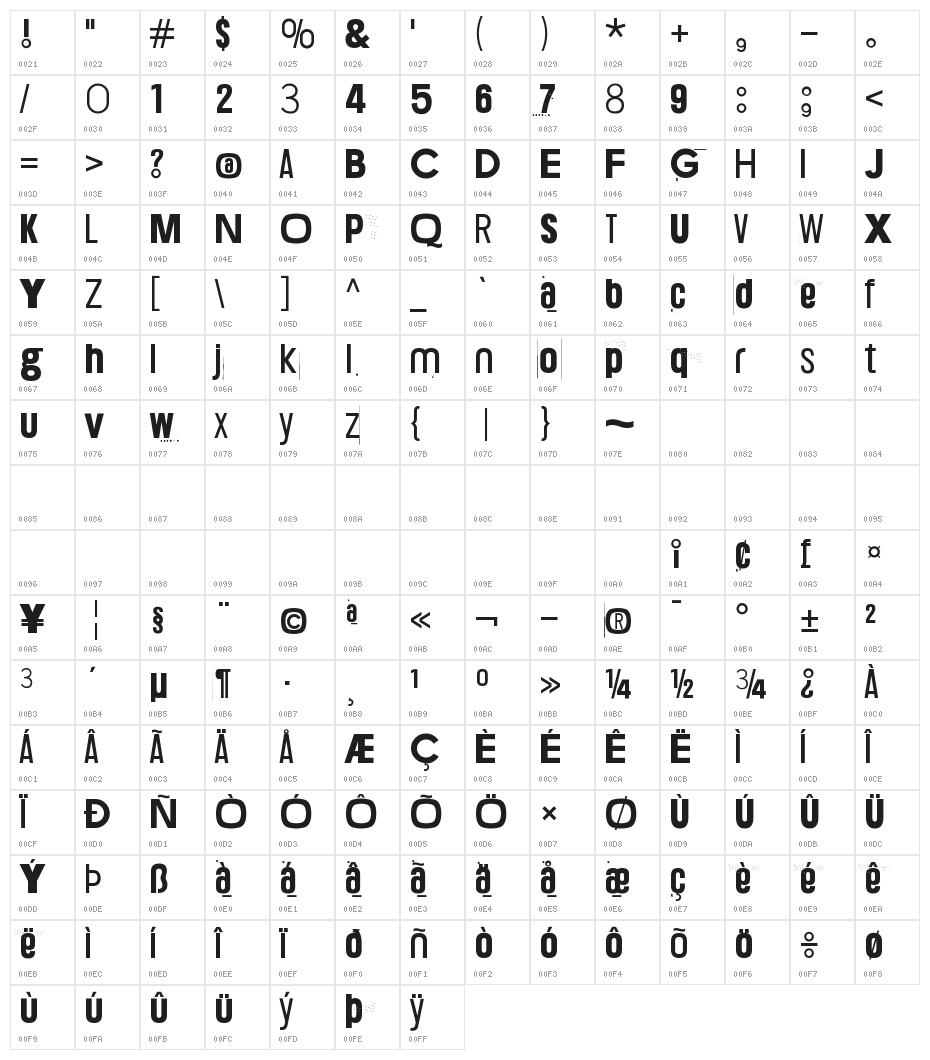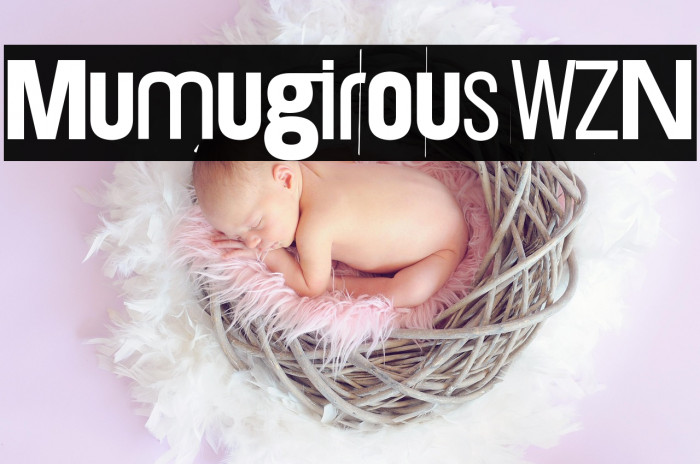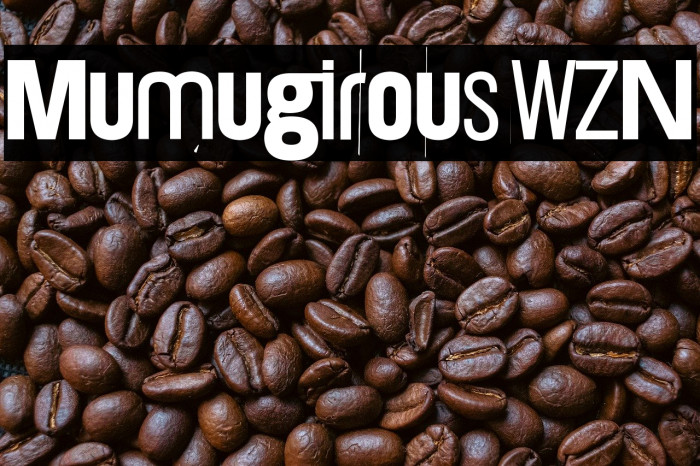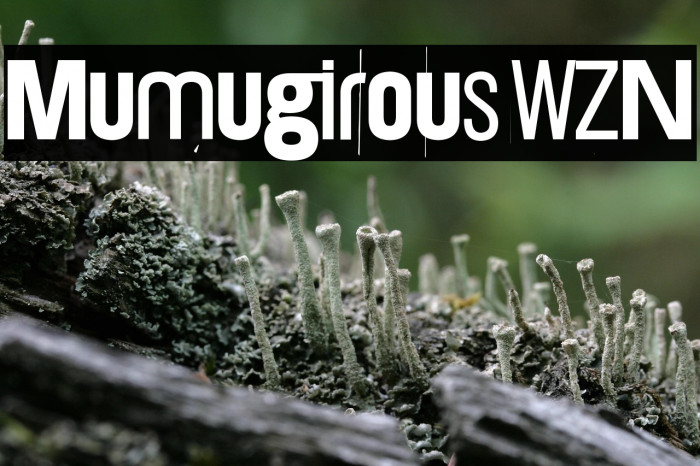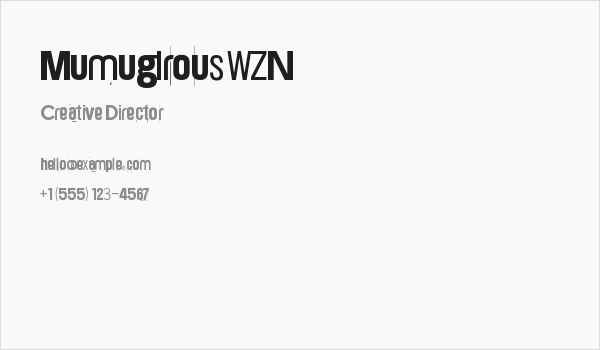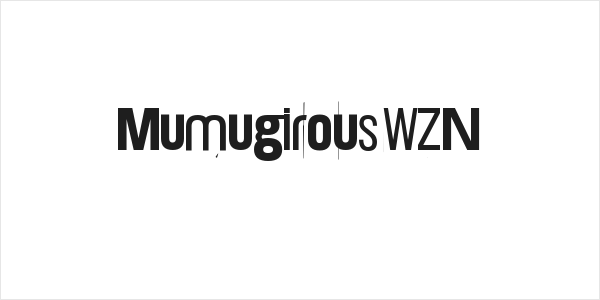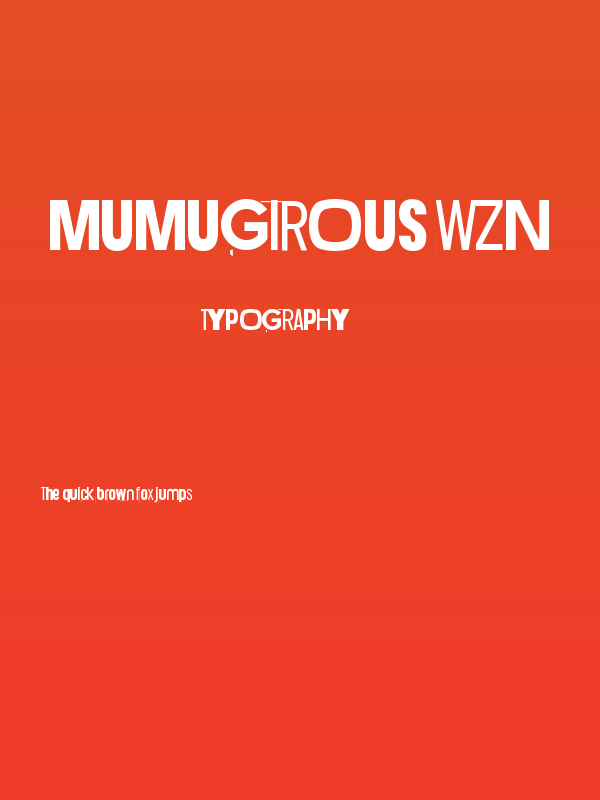
Mumugirous WZN Font
Mumugirous WZN Description
This font features a bold and modern design with a strong presence. The uppercase letters are robust and impactful, while the lowercase letters maintain a sleek and contemporary look. The numerals are clear and bold, ensuring readability. Special characters are well-integrated, maintaining the overall aesthetic. The font's design is versatile, suitable for various applications where a modern and assertive style is desired.
| Proposed Projects | Ideal for branding, advertising, headlines, and digital media where a strong visual impact is needed. |